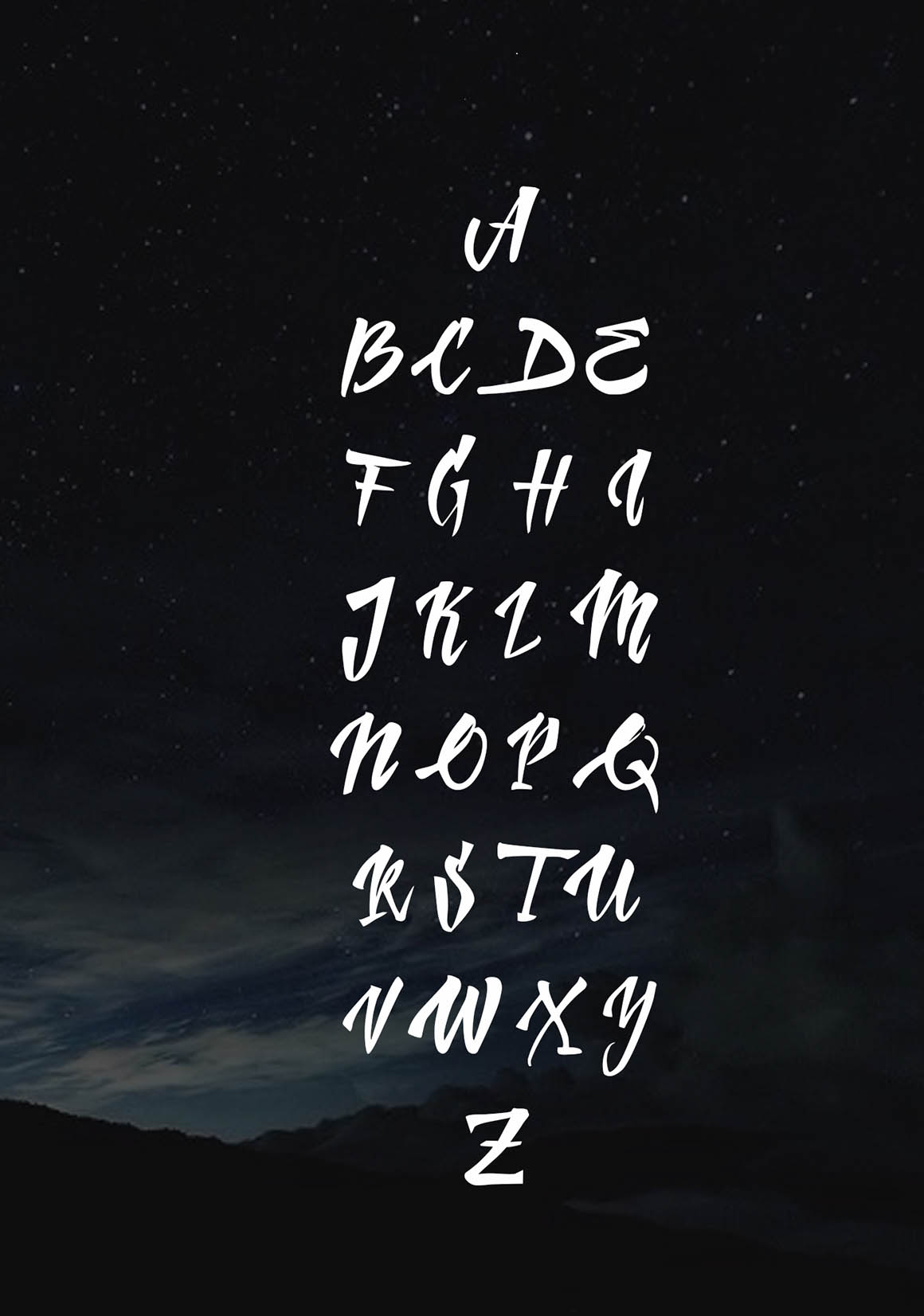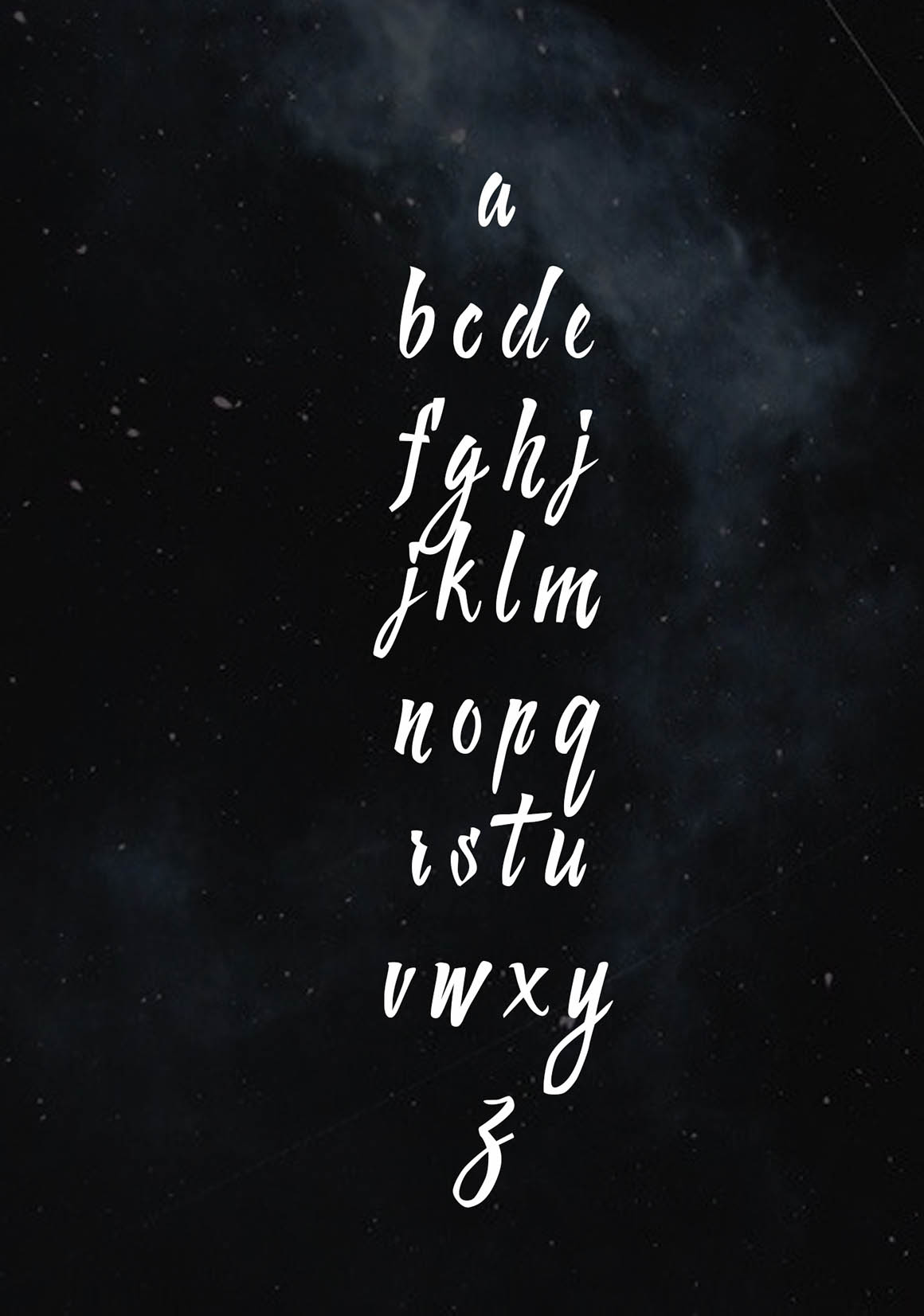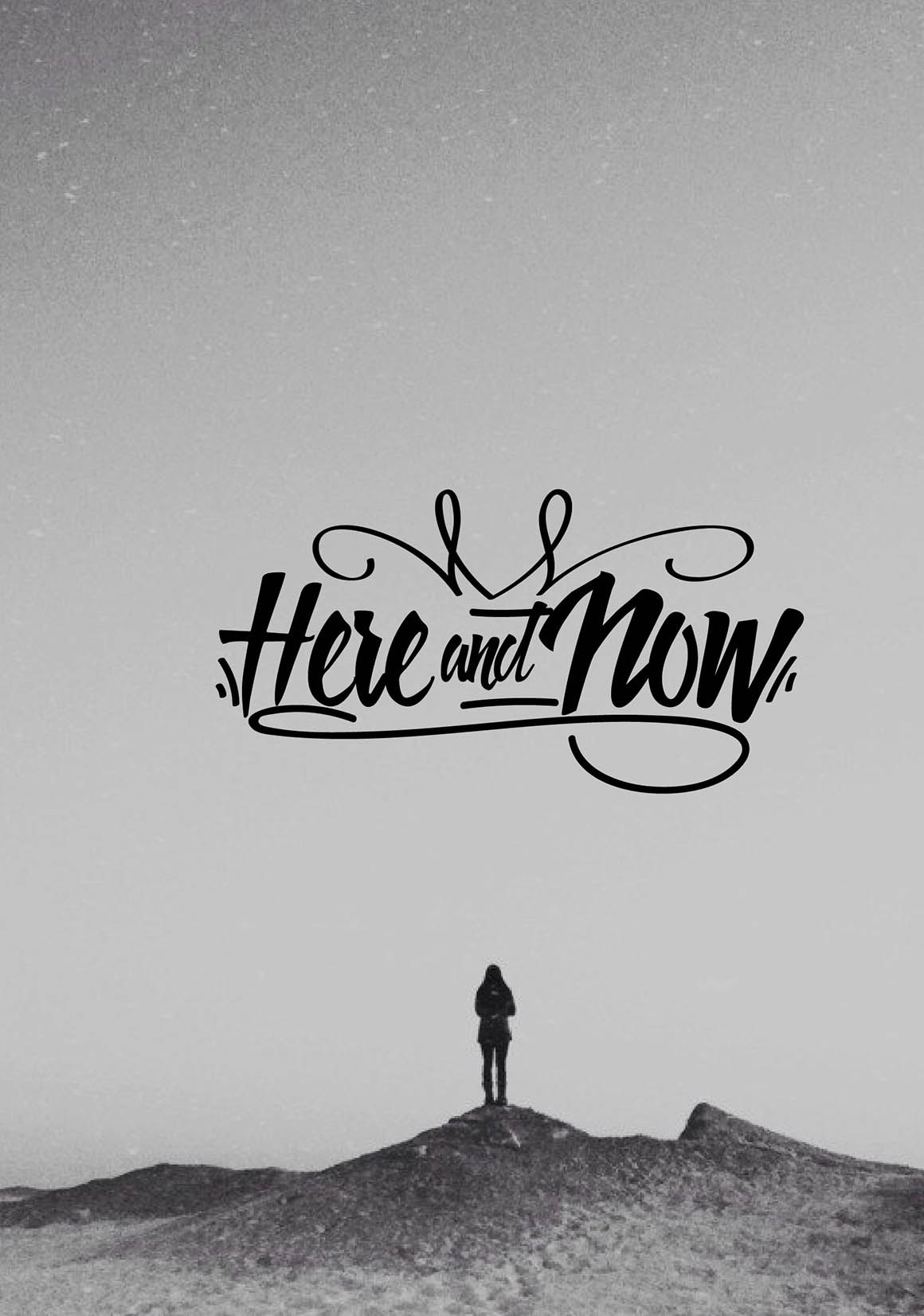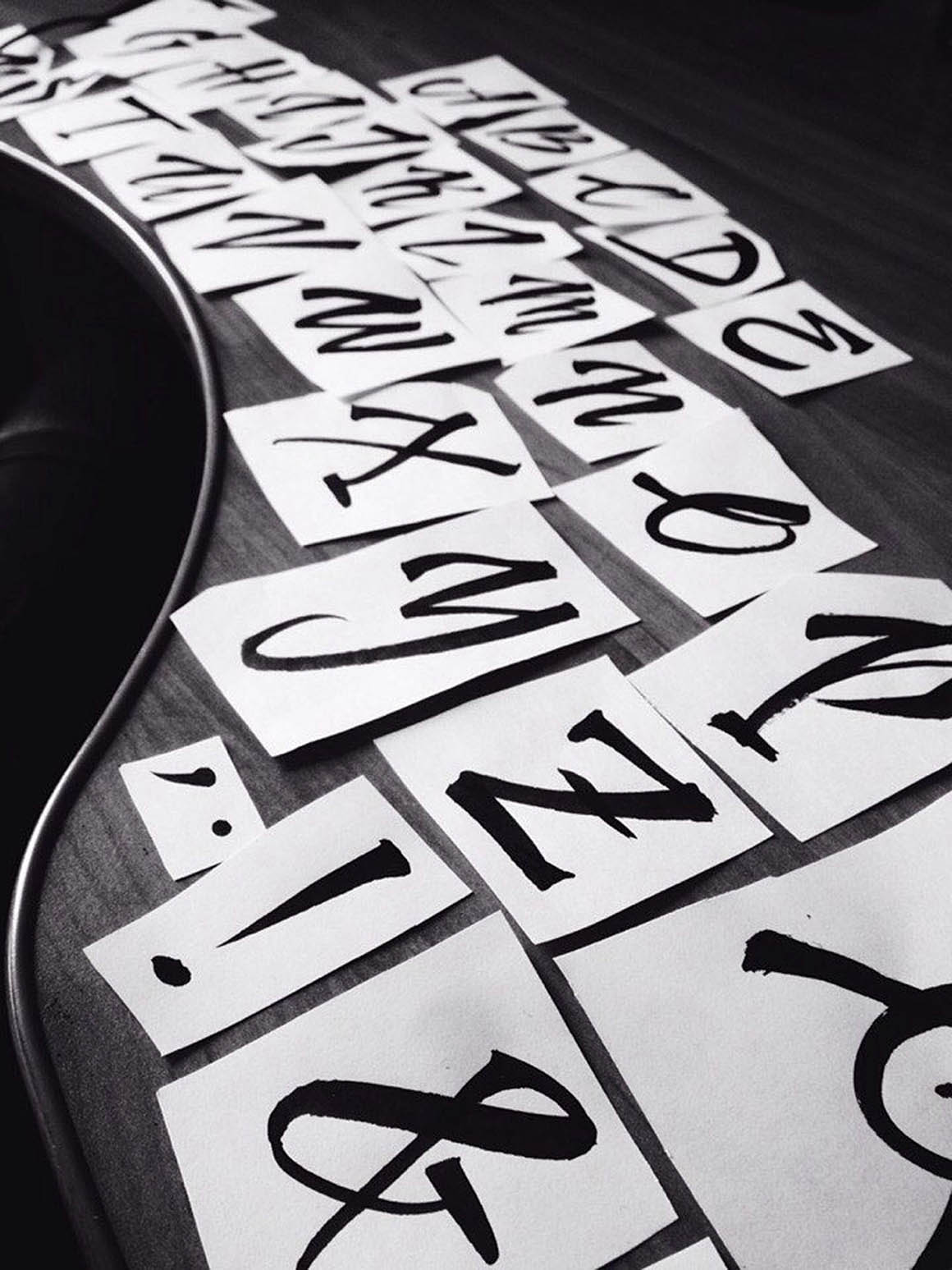
Handletter – Free Script Font
This cool hand drawn style script custom font is from Sasha Koggio. Great for your new creative projects. Only for personal puroposes, for commercial use please contact author! Download and enjoy ;)